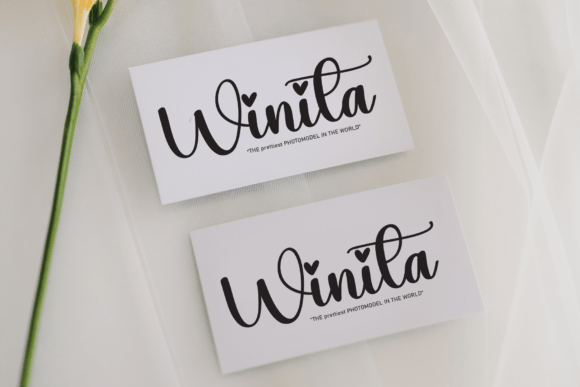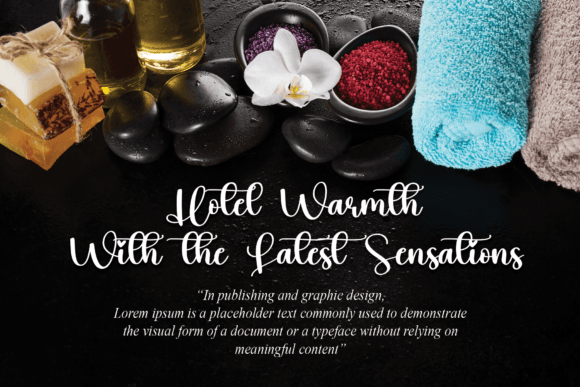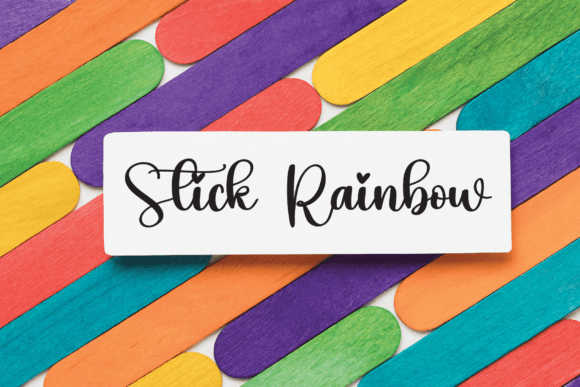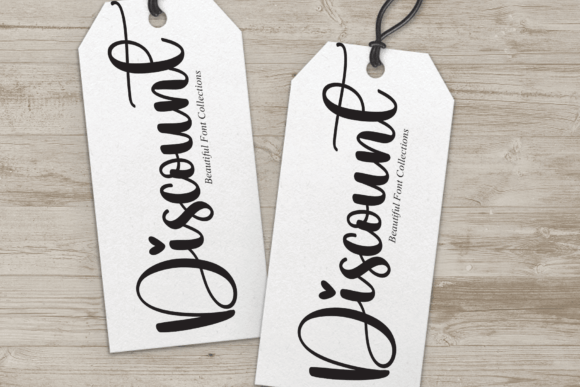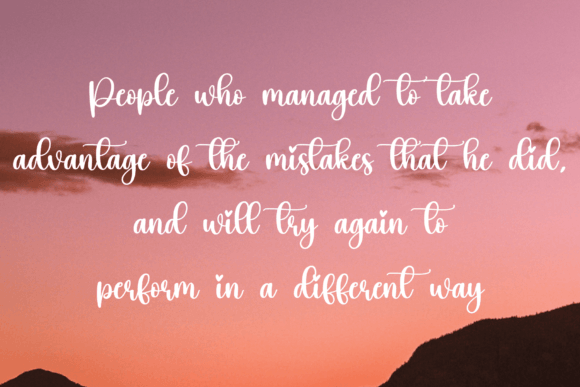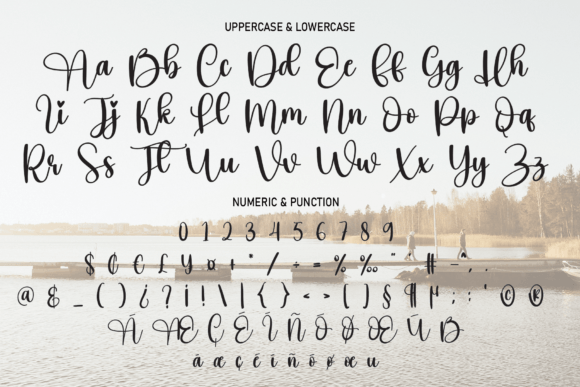
The Daily Font: A Handwritten Treasure for Creative Projects
I’ll never forget the moment I stumbled upon the Daily font while working on a wedding invitation project. My client wanted a custom design that exuded elegance and whimsy, but I was struggling to find the perfect font to bring it all together. That’s when I discovered Daily’s beautiful letters, and it was love at first sight! 💕
With its perfect blend of handwritten charm and versatility, Daily has become a staple in my design toolkit. In this article, I’ll share with you what makes this font so special, its uses, and some practical tips on how to make the most of it in your creative projects.
An Honest Review of Daily Font
- ✨ Beautiful, handwritten letters with a touch of elegance
- ✅ Highly versatile and suitable for a wide range of projects
- ✅ Easy to read and understand, even in smaller sizes
- ✅ Extensive OpenType features, glyphs, and stylistic alternates
While Daily is an amazing font, there are a few things to keep in mind:
- ⚠️ Some characters may require manual kerning for optimal spacing
- 🤔 Limited availability of Cyrillic and non-English characters
The Story Behind Daily Font
Daily was designed with the intention of creating a beautiful, handwritten font that captures the essence of everyday moments. The designer aimed to create a font that’s both elegant and approachable, perfect for a wide range of creative projects.
Q: What type of projects is Daily suitable for?
A: Daily is perfect for wall displays, wedding invitations, social media post logos, advertisements, product packaging, product designs, labels, photography, watermarks, invitations, stationery, and any project that requires a handwritten touch.
Q: Does Daily support OpenType features?
A: Yes, Daily supports OpenType features, glyphs, and stylistic alternates, making it a versatile font for creative projects.